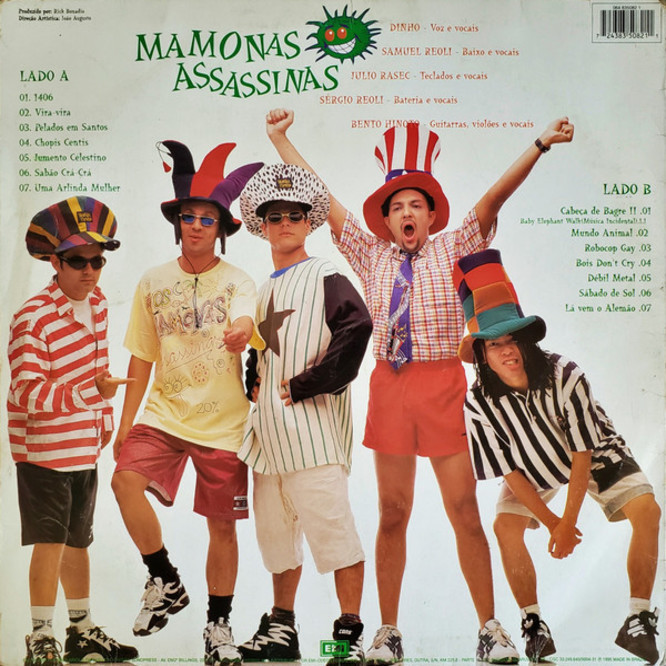
Mamonas Assassinas Font
Fonts in UseMamonas Assassinas was a Brazilian rock band that released only one self-titled album in 1995, which became a cultural phenomenon in Brazil due to its irreverent and humorous lyrics, eclectic musical style, and energetic performances.
The font named La Bamba, created by British designer David Quay, was utilized in the album's title, credits, and track listing. With wedge-shaped serifs reminiscent of the 1750s style, the font includes full upper and lowercase alphabets along with a set of ornate initial capitals for added versatility.